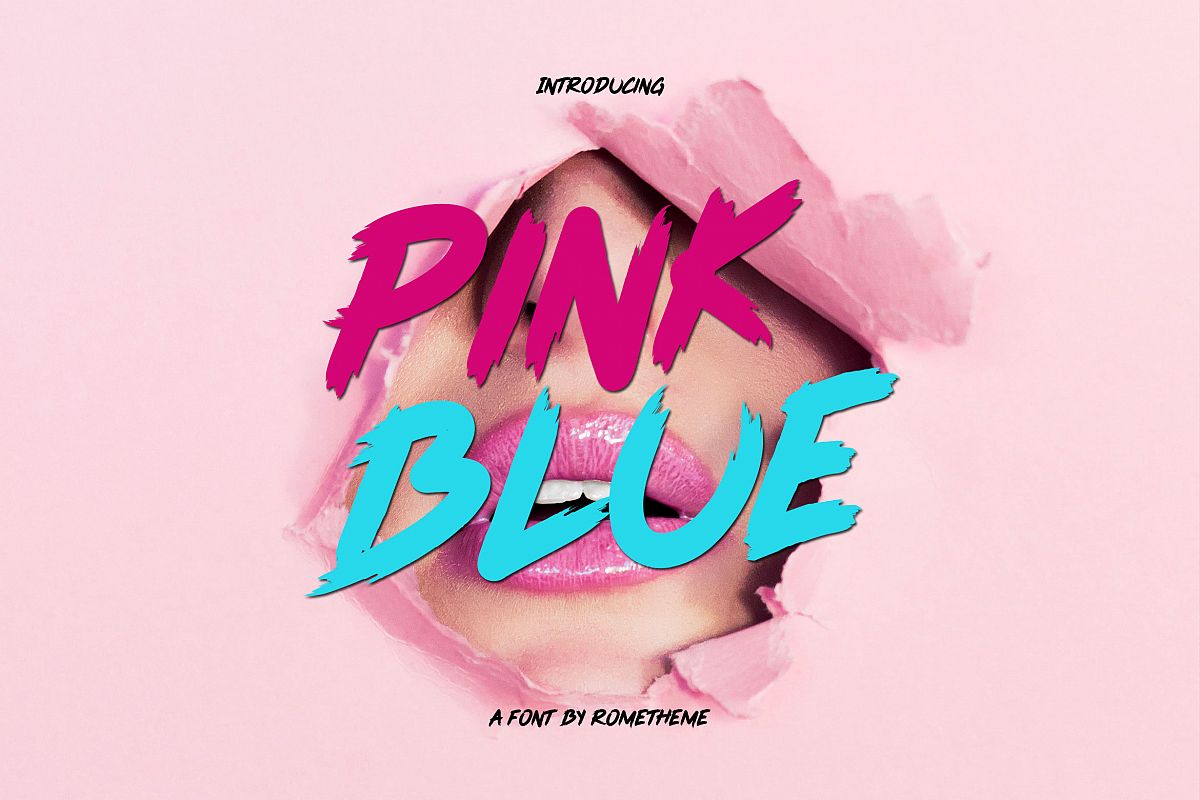
Pink Blue Font
Pink Blue
Pink Blue is a brush font and classy handwritten font, this font looks elegant, classy, readable, stylish, catchy and easy to use.
Pink Blue is the best choice for your professional design projects, including signature, watermark on photography, quotes, wedding, fashion, letter, invitation, business card, logo, branding, magazines, social media, advertisements, product designs, and much other design projects.